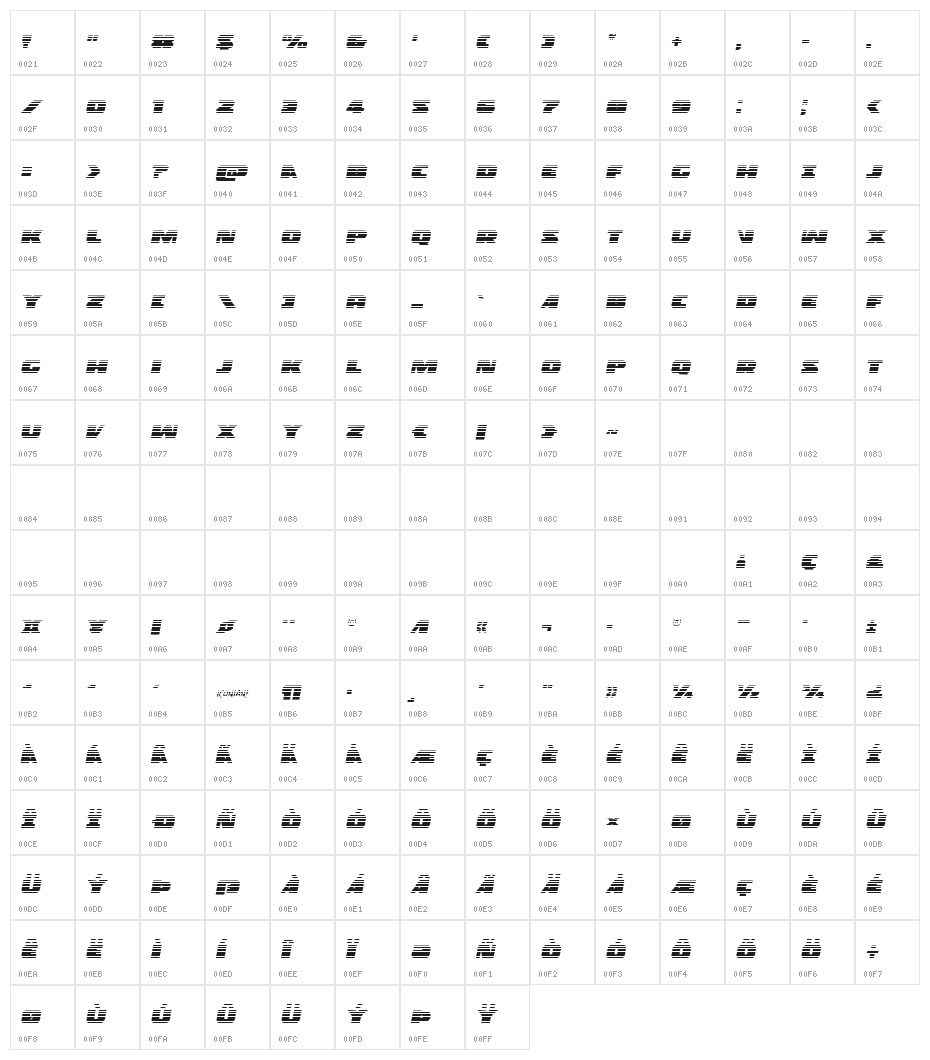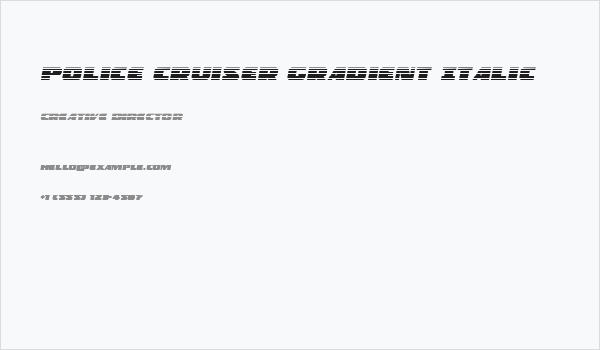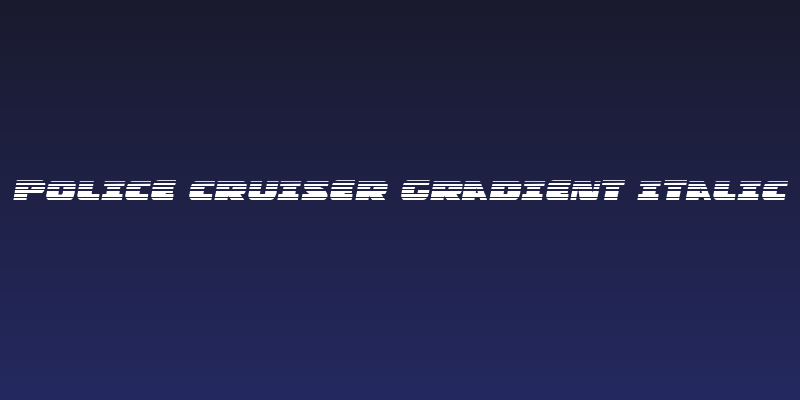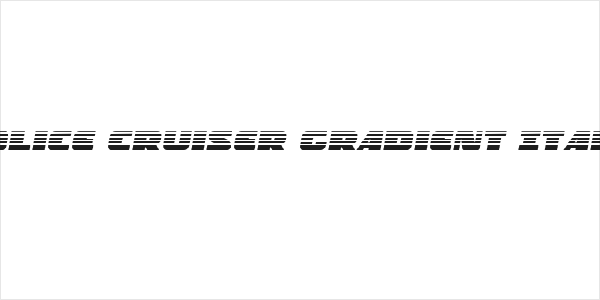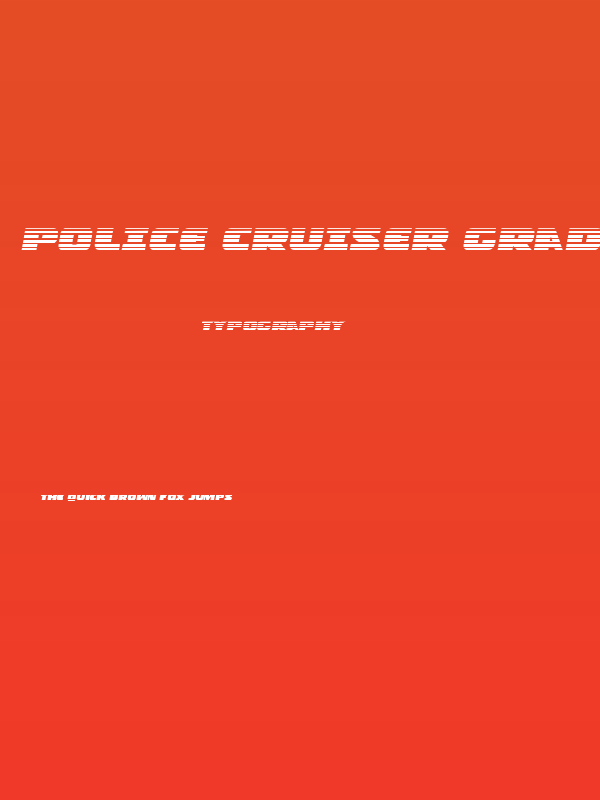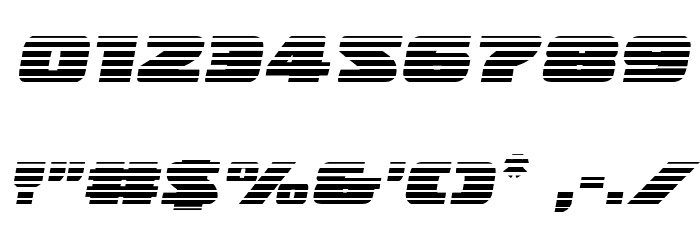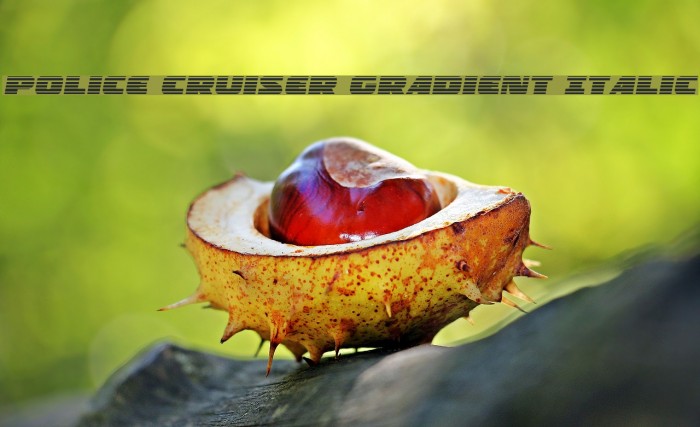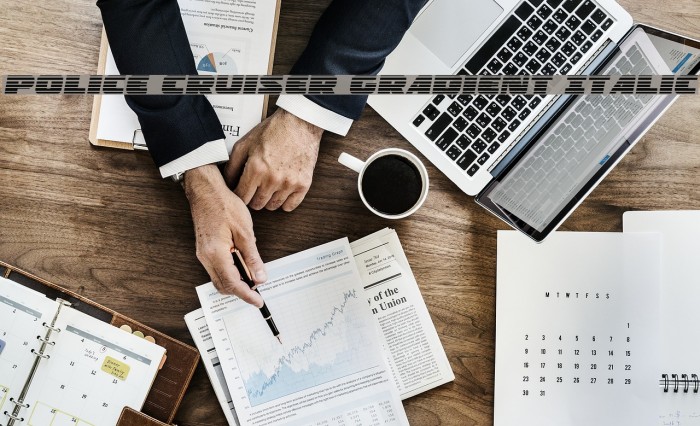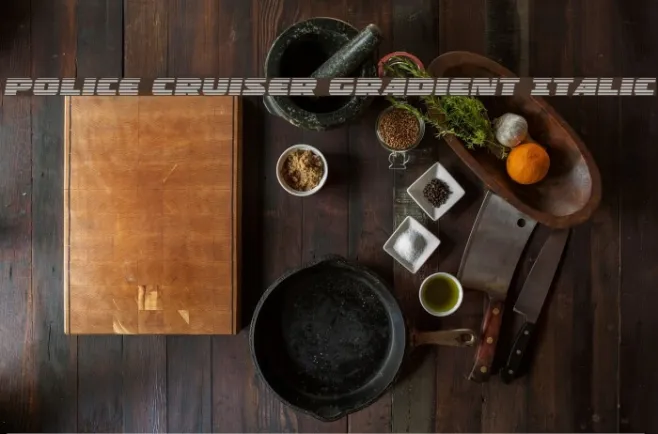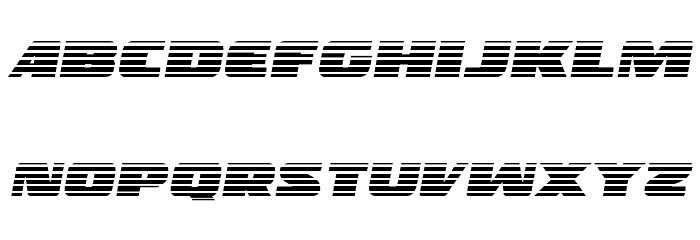
Police Cruiser Gradient Italic Font
Police Cruiser Gradient Italic Description
This font features a bold, italicized style with a distinct gradient effect created by horizontal lines running through each character. The uppercase and lowercase letters, as well as numbers and special characters, maintain a consistent design, emphasizing a futuristic and dynamic appearance. The font's structure is solid and impactful, making it ideal for attention-grabbing designs. The italic slant adds a sense of motion and speed, enhancing its modern and edgy aesthetic.
| Proposed Projects | Ideal for use in automotive branding, sports team logos, video game titles, and dynamic poster designs. |